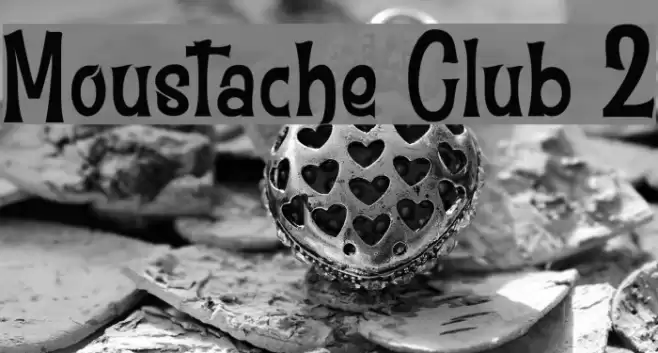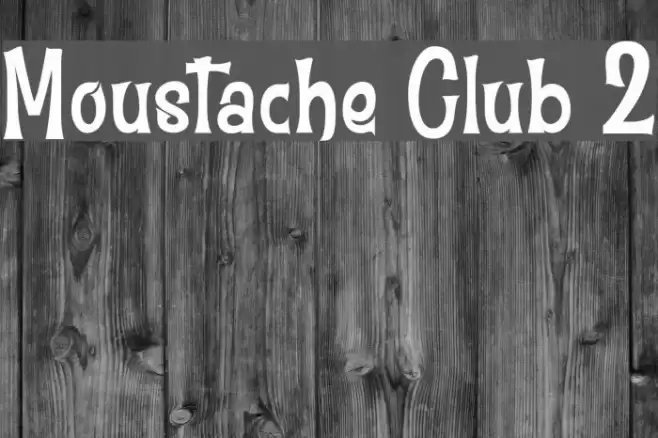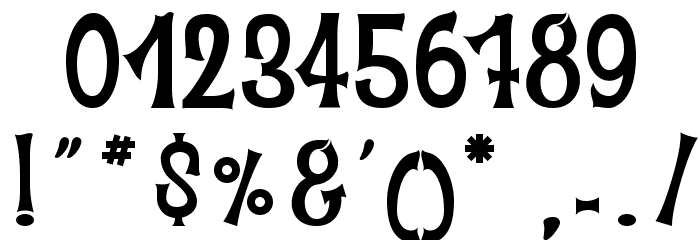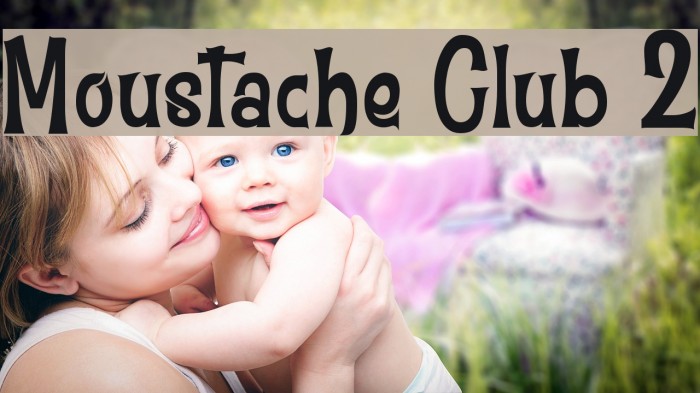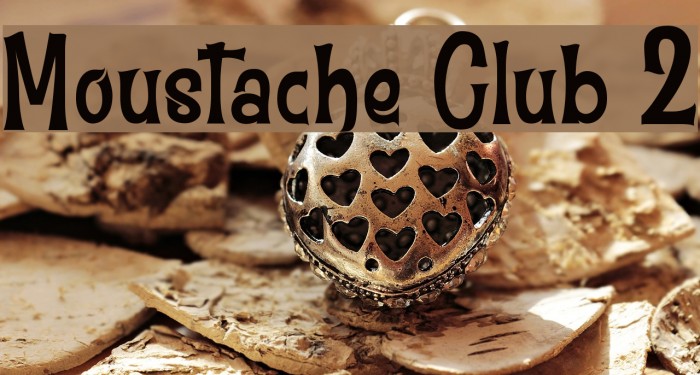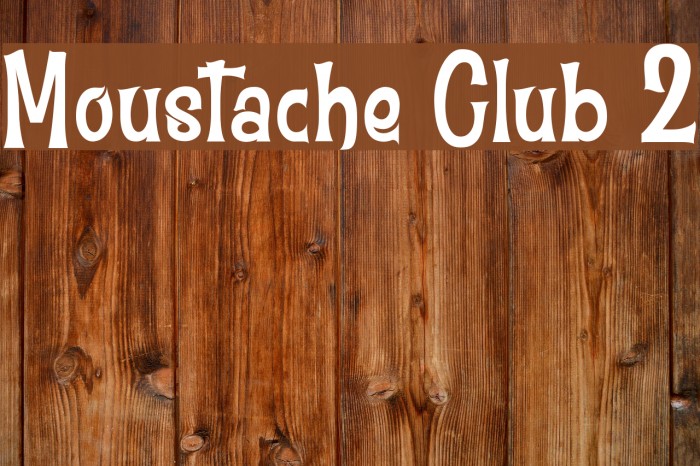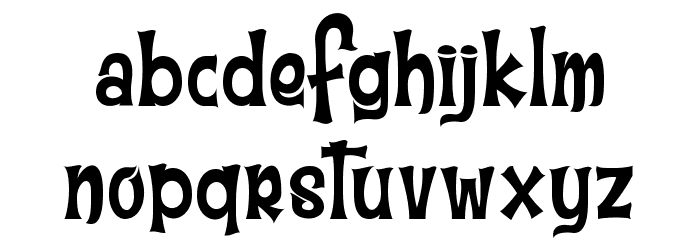
Moustache Club 2 Font
Moustache Club 2 Description
This font features a playful and whimsical design, characterized by its exaggerated curves and unique serifs. The letters have a hand-drawn quality, giving them a lively and dynamic appearance. The uppercase letters are bold and prominent, while the lowercase letters maintain a consistent style with slightly varied heights and widths. The numbers are equally playful, with distinctive shapes that complement the overall aesthetic. Special characters are creatively designed, adding to the font's quirky charm. This typeface is ideal for projects that require a fun and engaging visual element.
A playful, whimsical font with exaggerated curves and unique serifs from Cartoon fonts.
- Proposed Projects: Ideal for children's books, playful branding, party invitations, and creative posters.